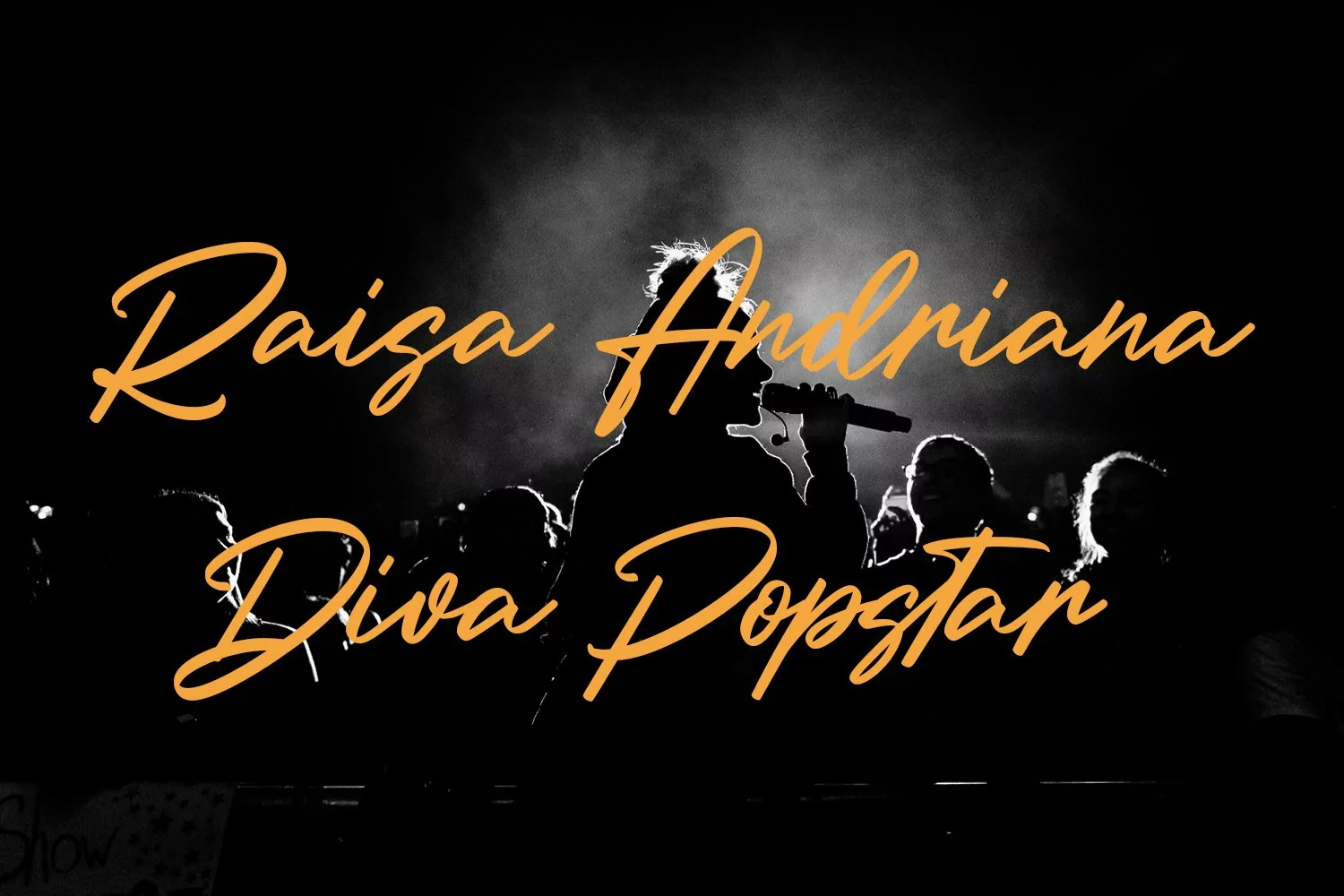
Kollhers is a calligraphic style script font. With contrast bold stroke, slanted and fun character with a bit of ligatures. To give you an extra creative work. Kollhers font support multilingual more than 100+ language. This font is good for logo design, Social media, Movie Titles, Books Titles, a short text even a long text letter and good for your secondary text font with sans or serif. Make a stunning work with Kollhers font.